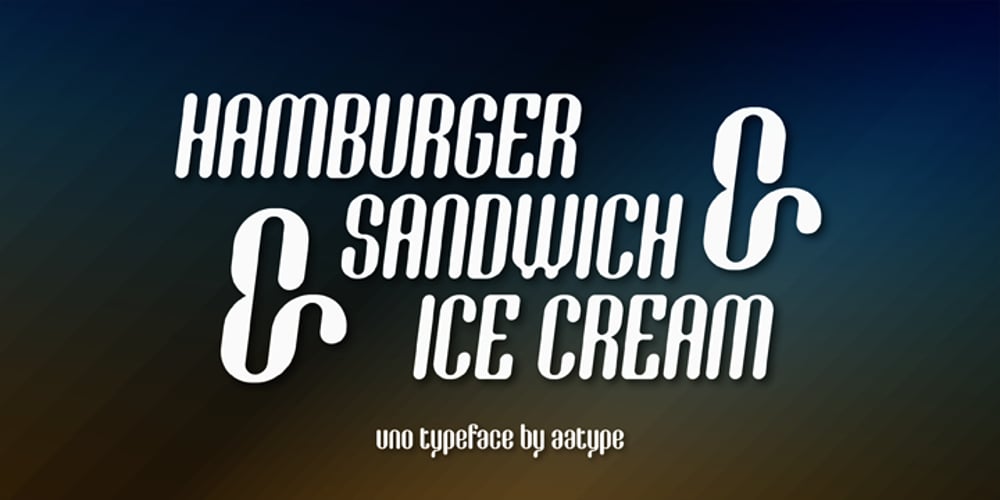
Uno Font Family was designed by Ahmet Altun and published by Ahmet Altun. Uno contains 4 styles and family package options. Uno font family comes in two weights and two styles. Generally, rounded fonts seem funny and pretty. This feature is valid for also Uno Font Family but although the characters of Uno Font Family are rounded, they seem masculine and serious. It is legible in small type sizes. With its decorative view, you can get matchless products in typographic works, t-shirt prints, posters, logos and every kind of graphic works.